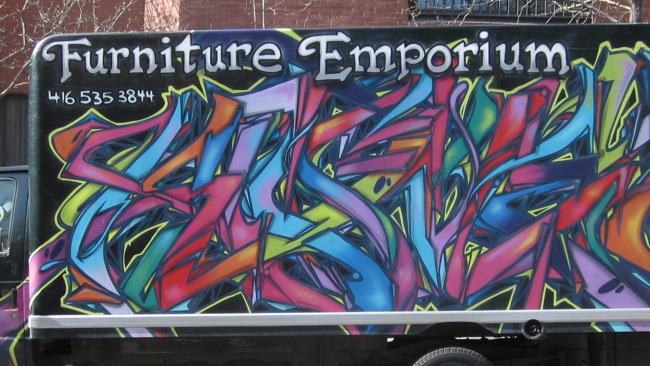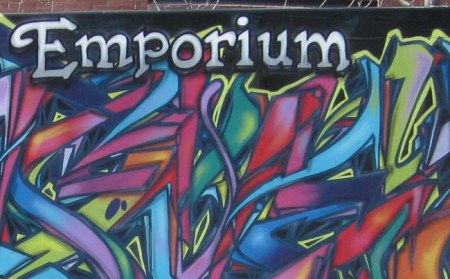
I noticed this truck while sitting in a cafe and dashed outside to take pictures. The design is so exuberant and over-the-top that I almost want to order furniture from this store, just so the truck will show up.
I like the way the business name doesn’t take centre stage but leaves most of the space to those wild, gyrating forms. The contrast is powerful: well-behaved lettering in black, white and grey next to colour-saturated mayhem.
Those letters stand at the edge of a crowded dance floor and may be on the verge of joining in.
What do you imagine this store’s furniture looks like?